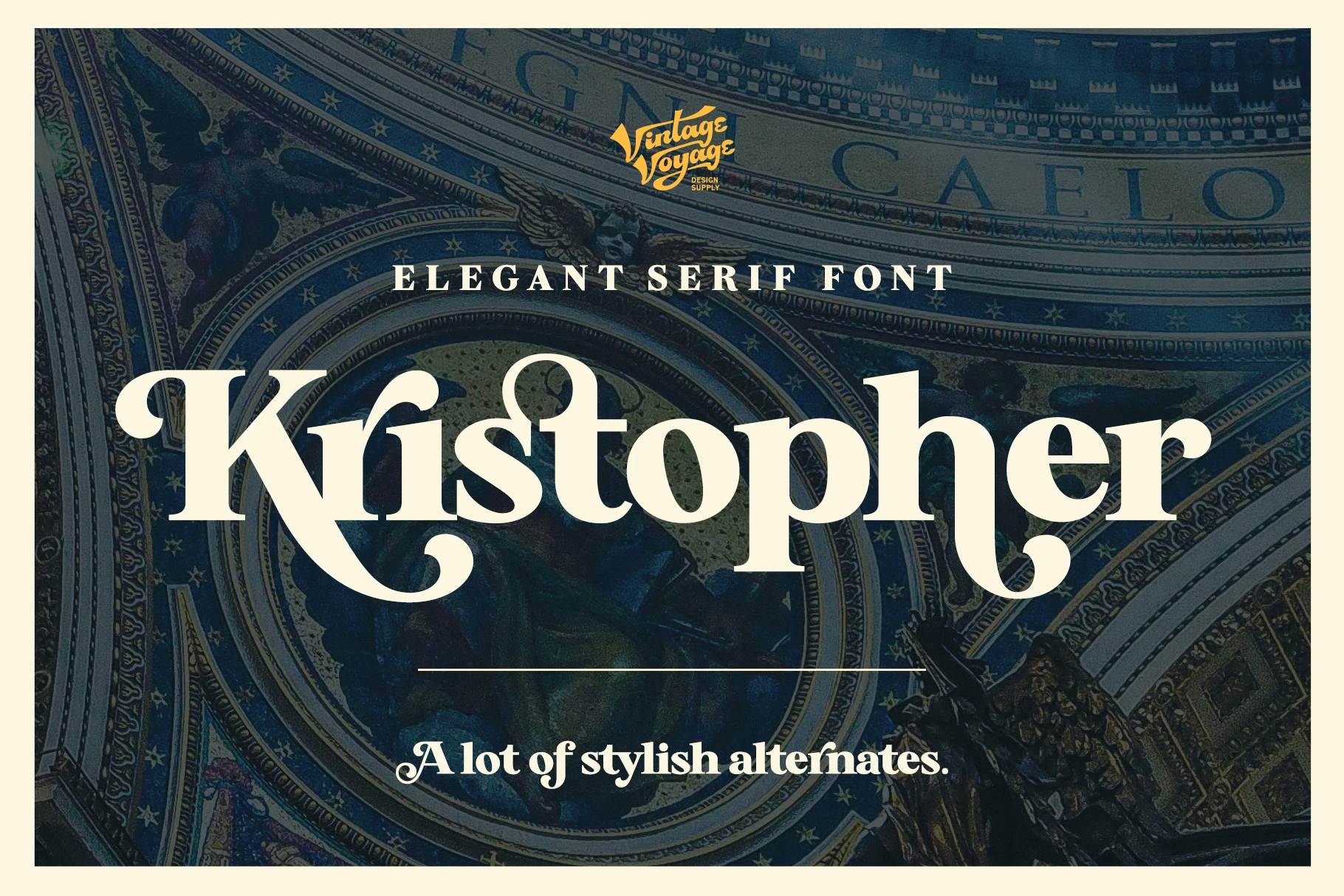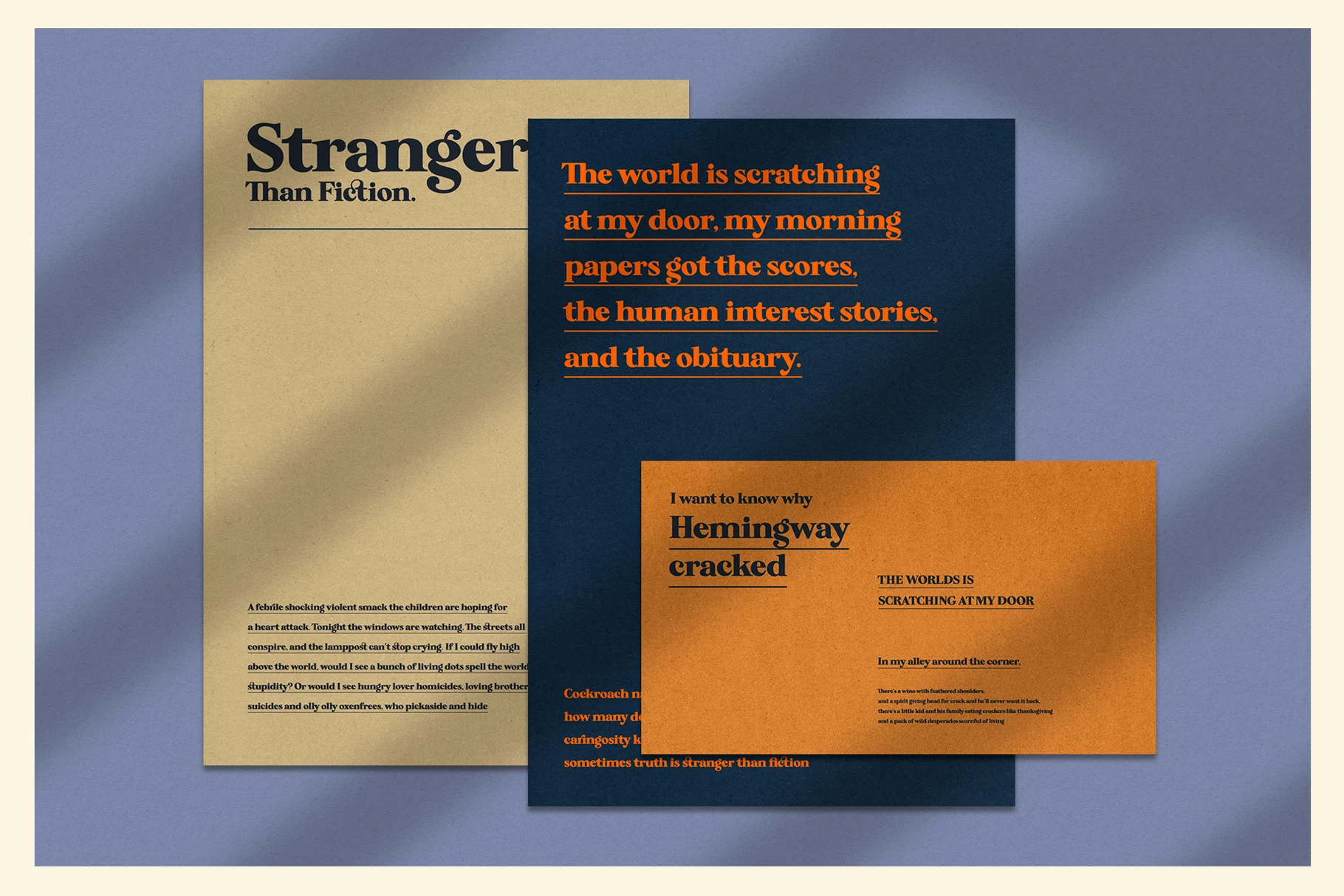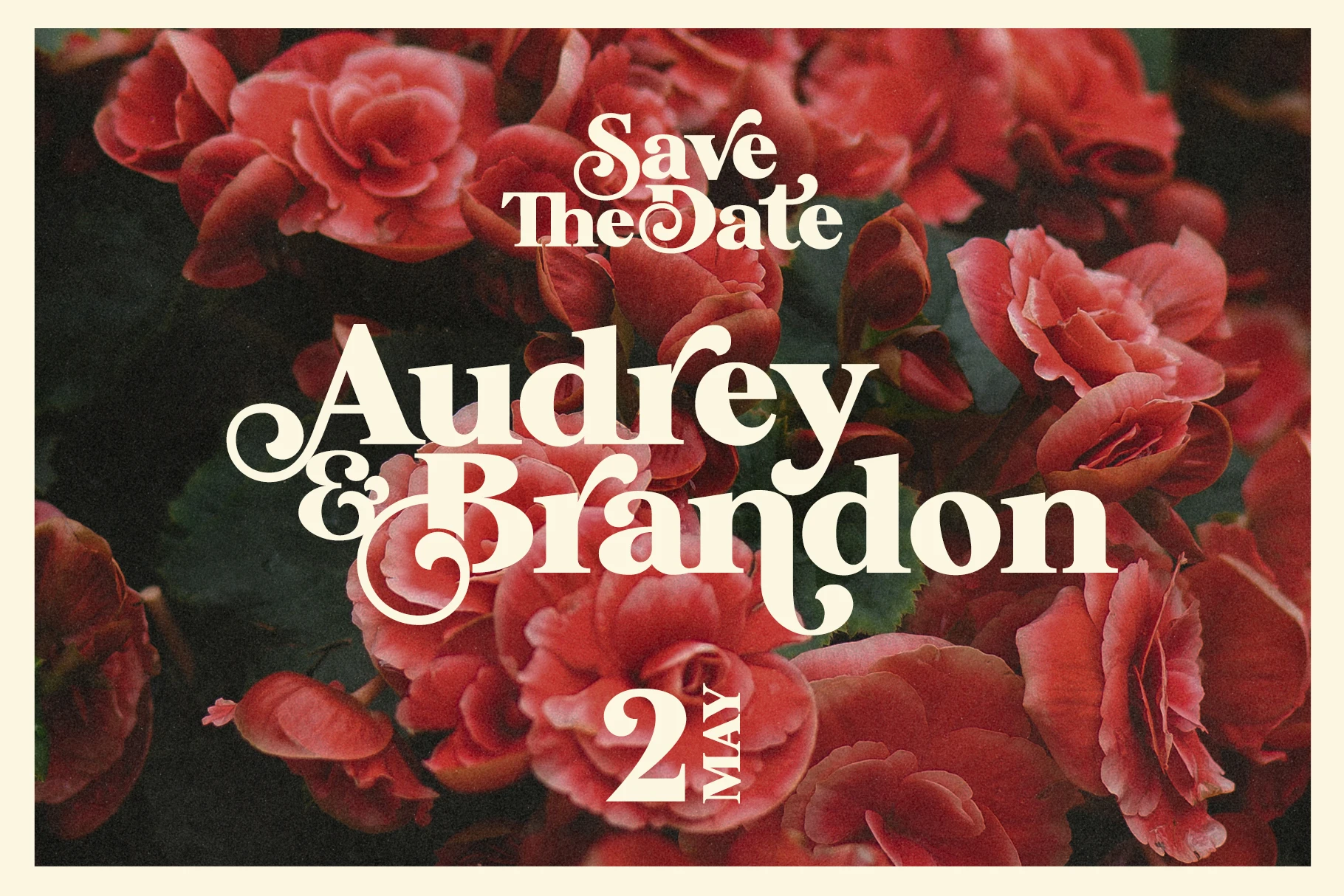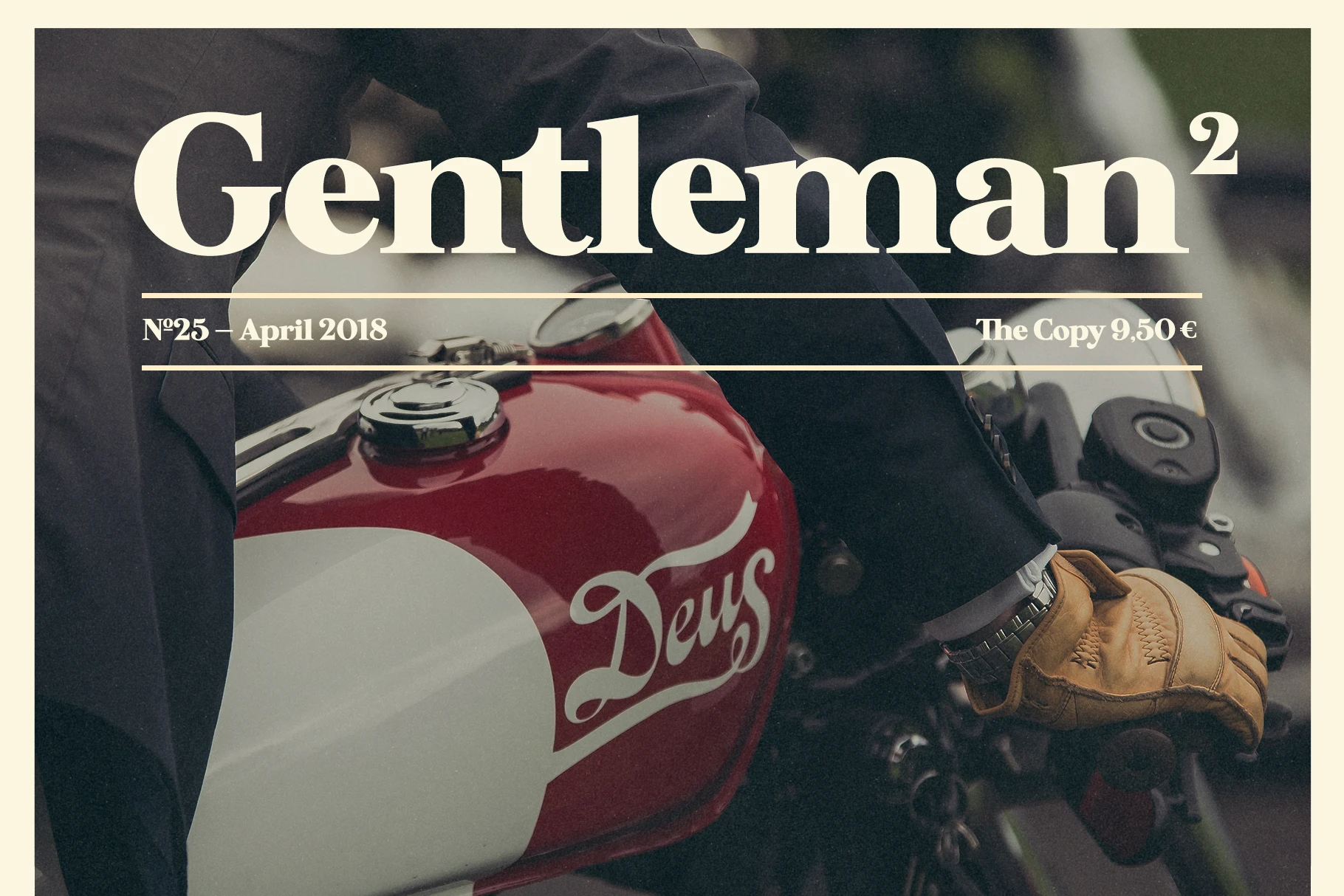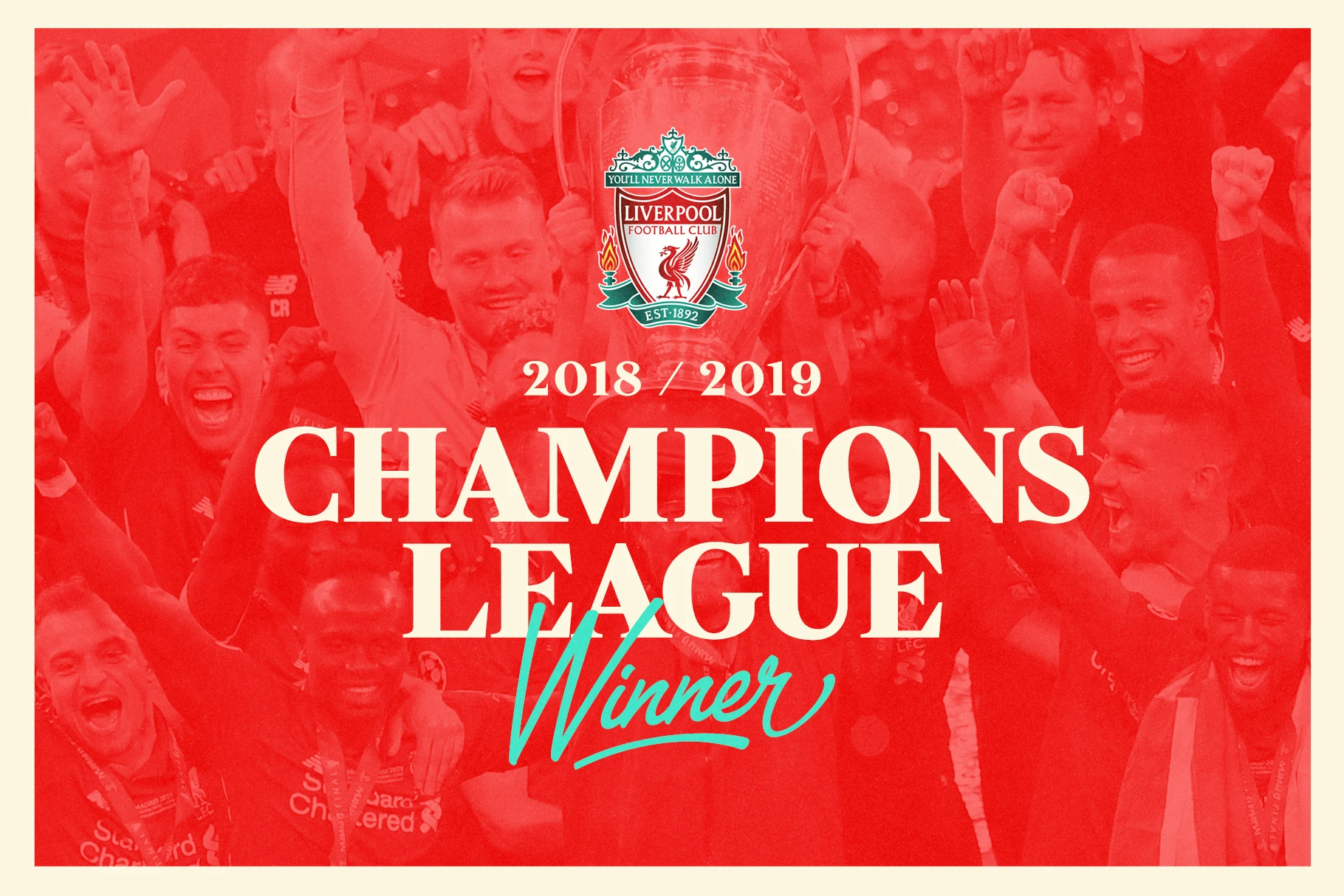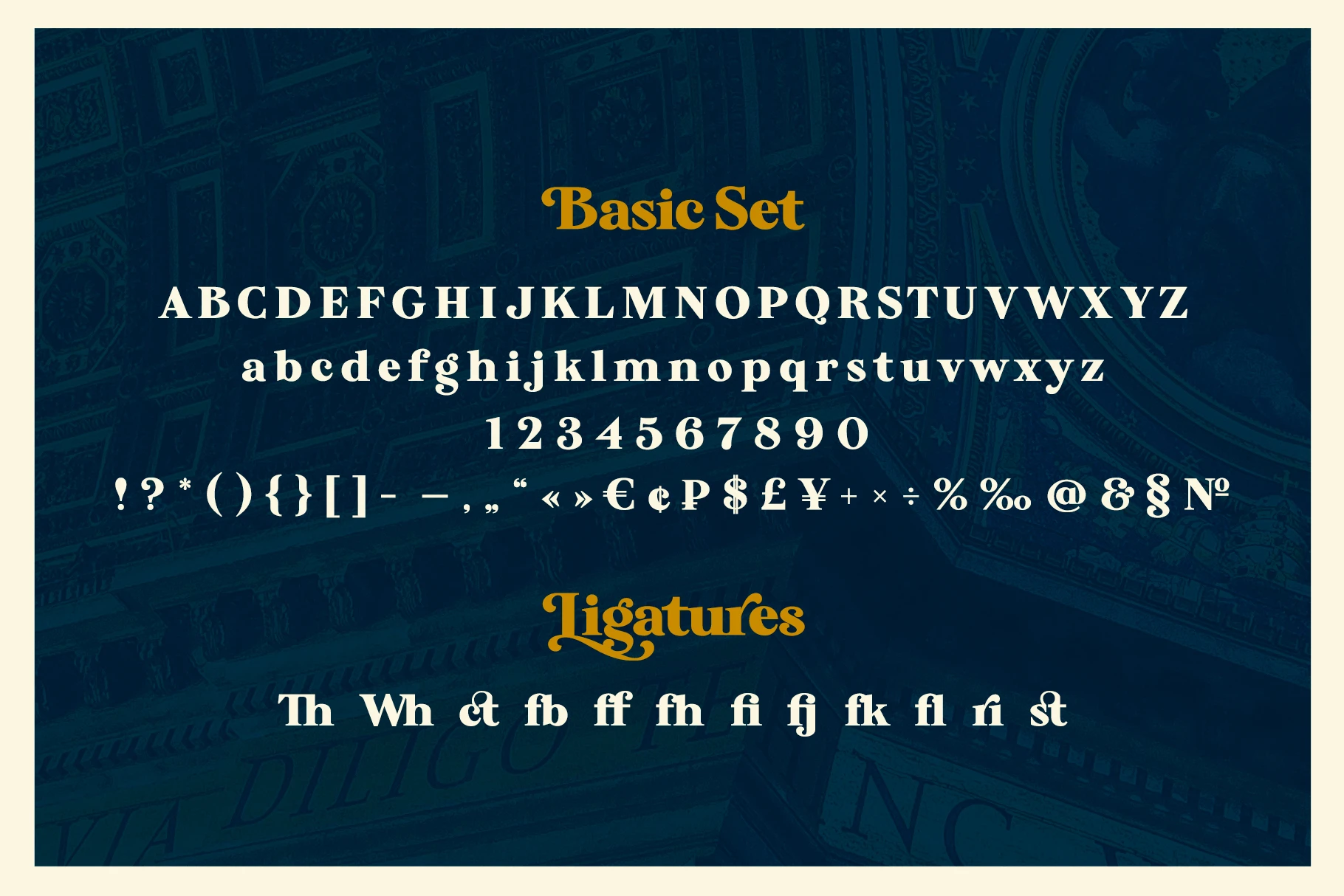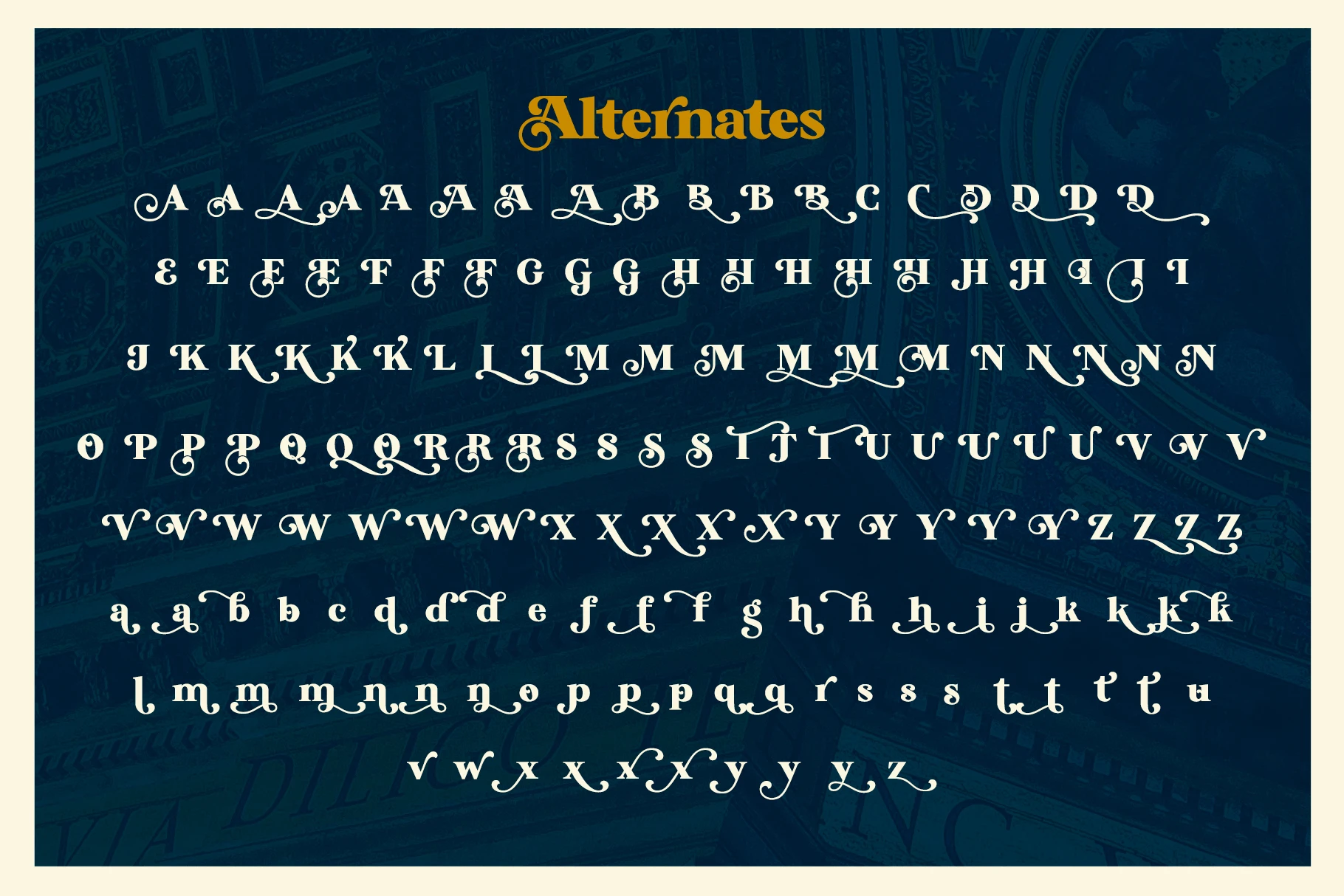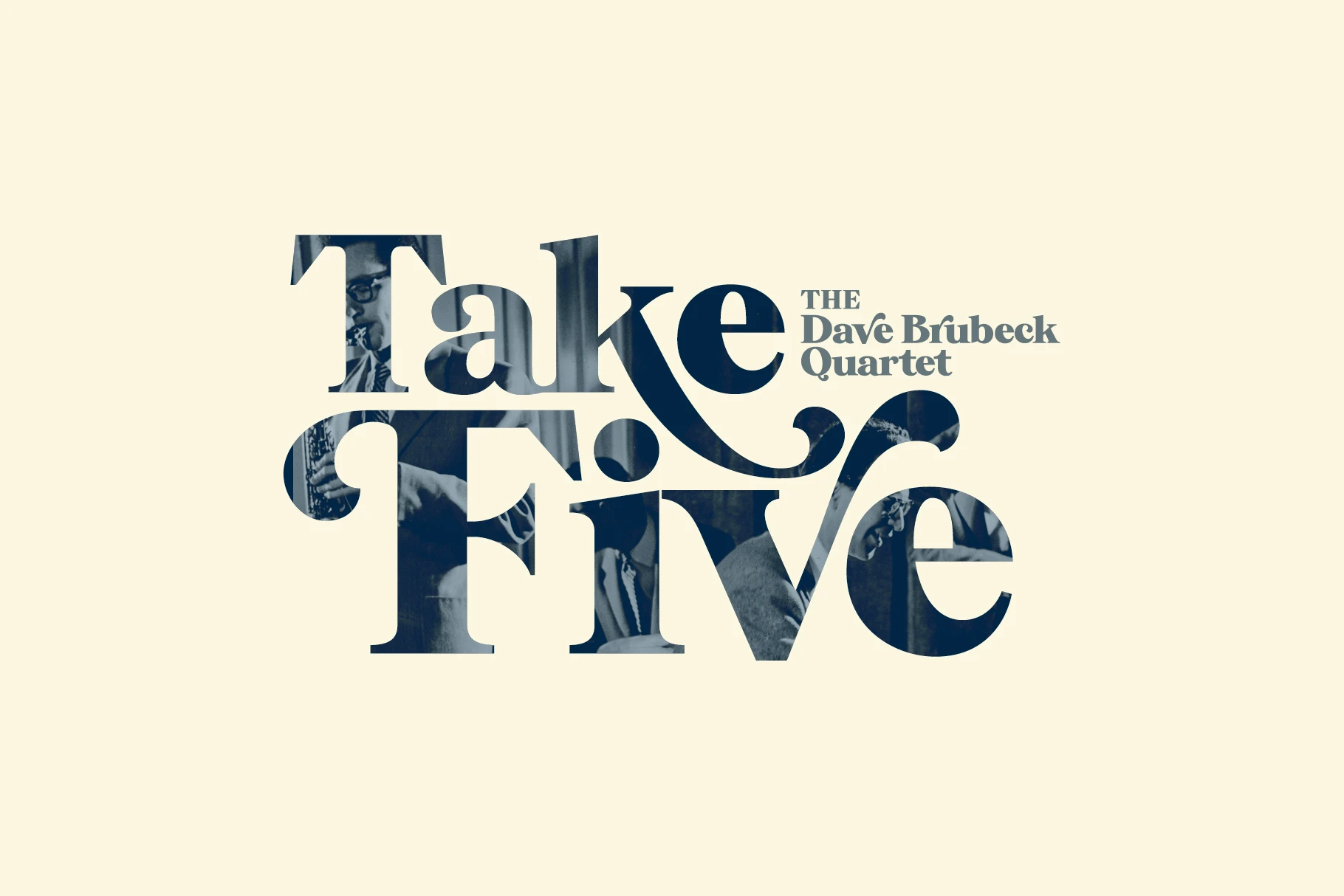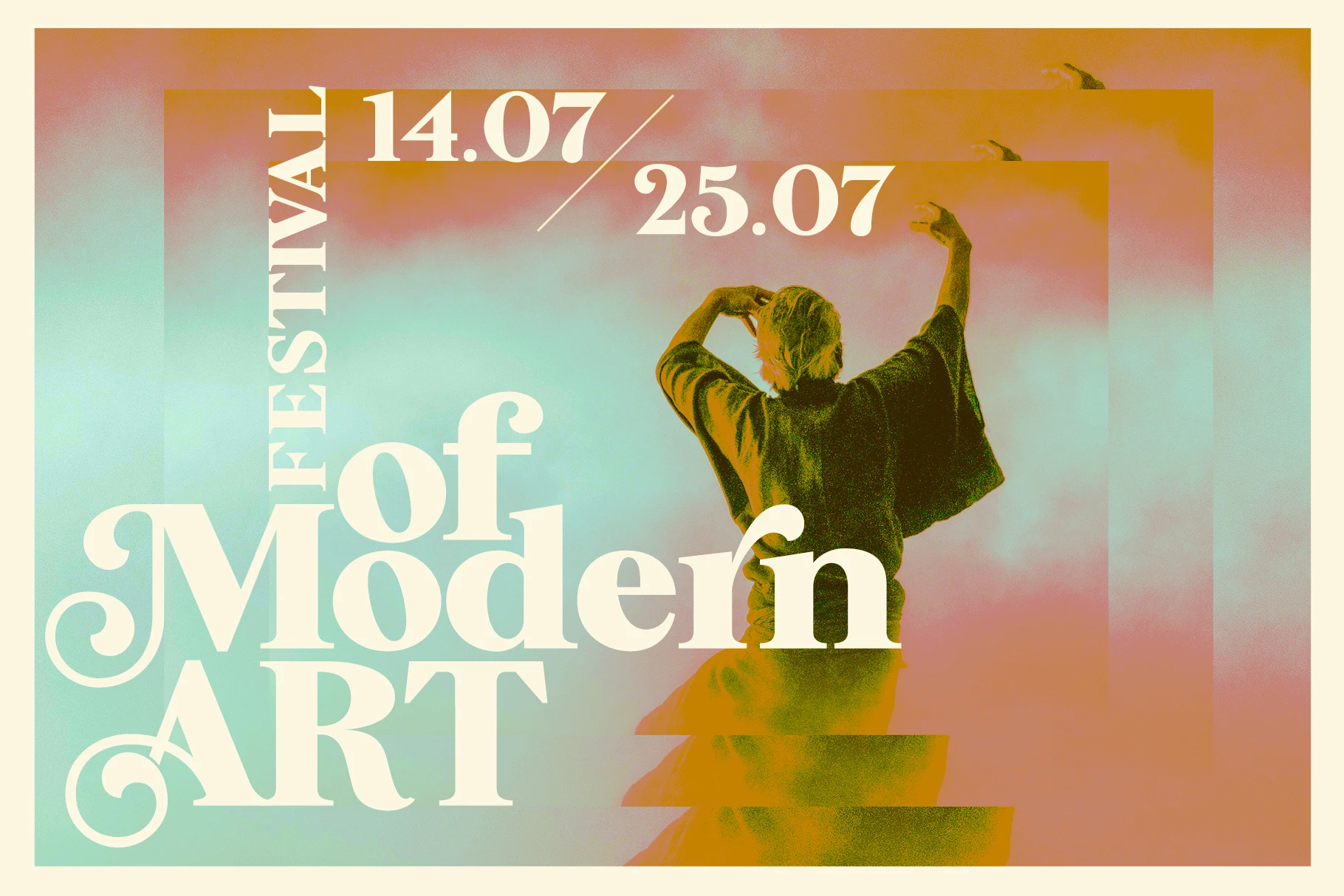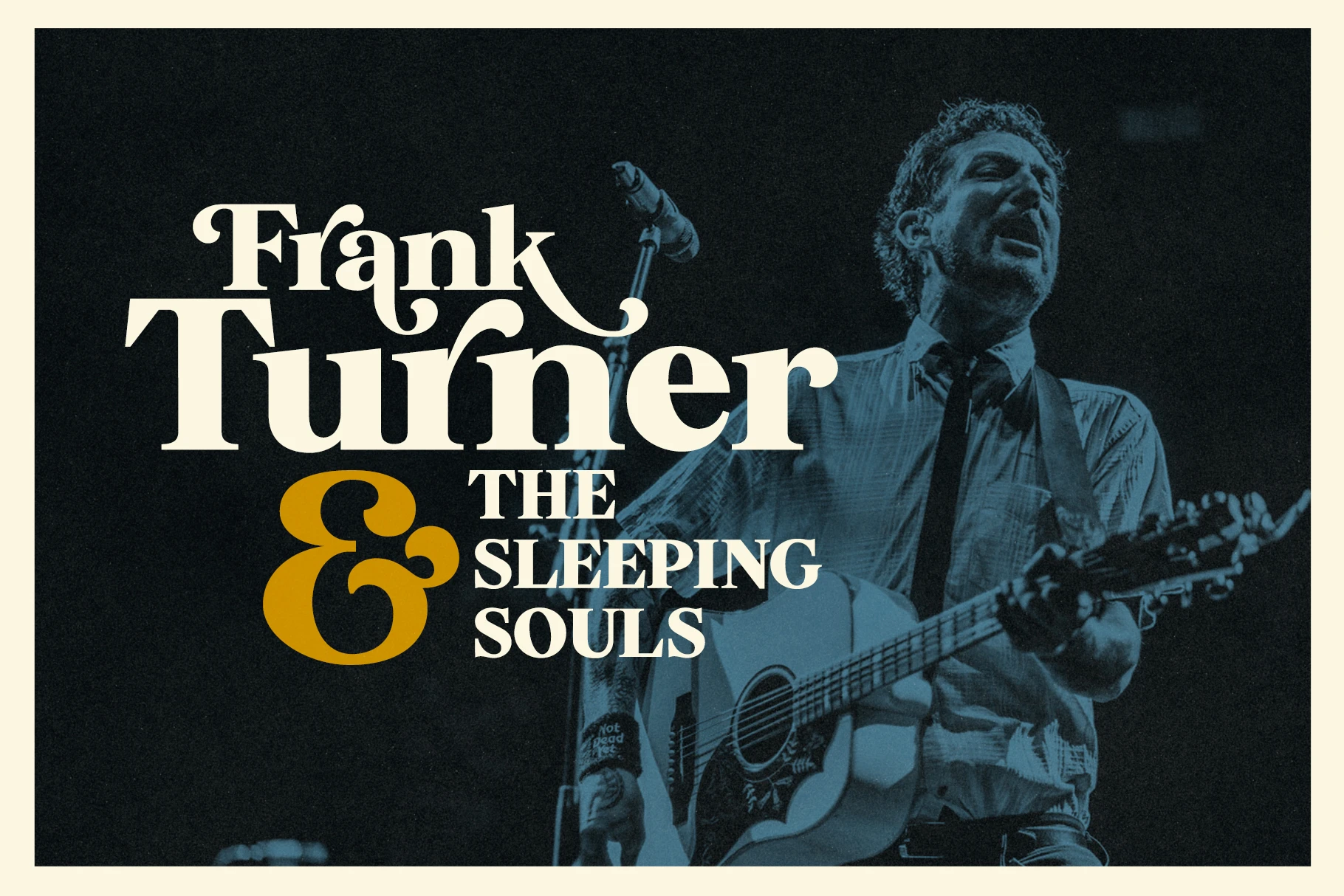
Kristopher Font
Kristopher is an elegant serif typeface with high contrast lines and refined curves. Designed with a wide range of stylish alternates for versatile, expressive layouts. Can shift from classic and conservative to playful and modern with ease. Perfect for theatre and art posters, music covers, and digital visuals. Also well-suited for coffee shops, restaurants, magazine headers, signage, postcards, and wedding materials. A great choice for beauty and travel blogs, offering flexible styling across creative projects.
• Common Ligatures
• Fractions
• Stylistic Alternates
• Stylistic Sets
• Superscript